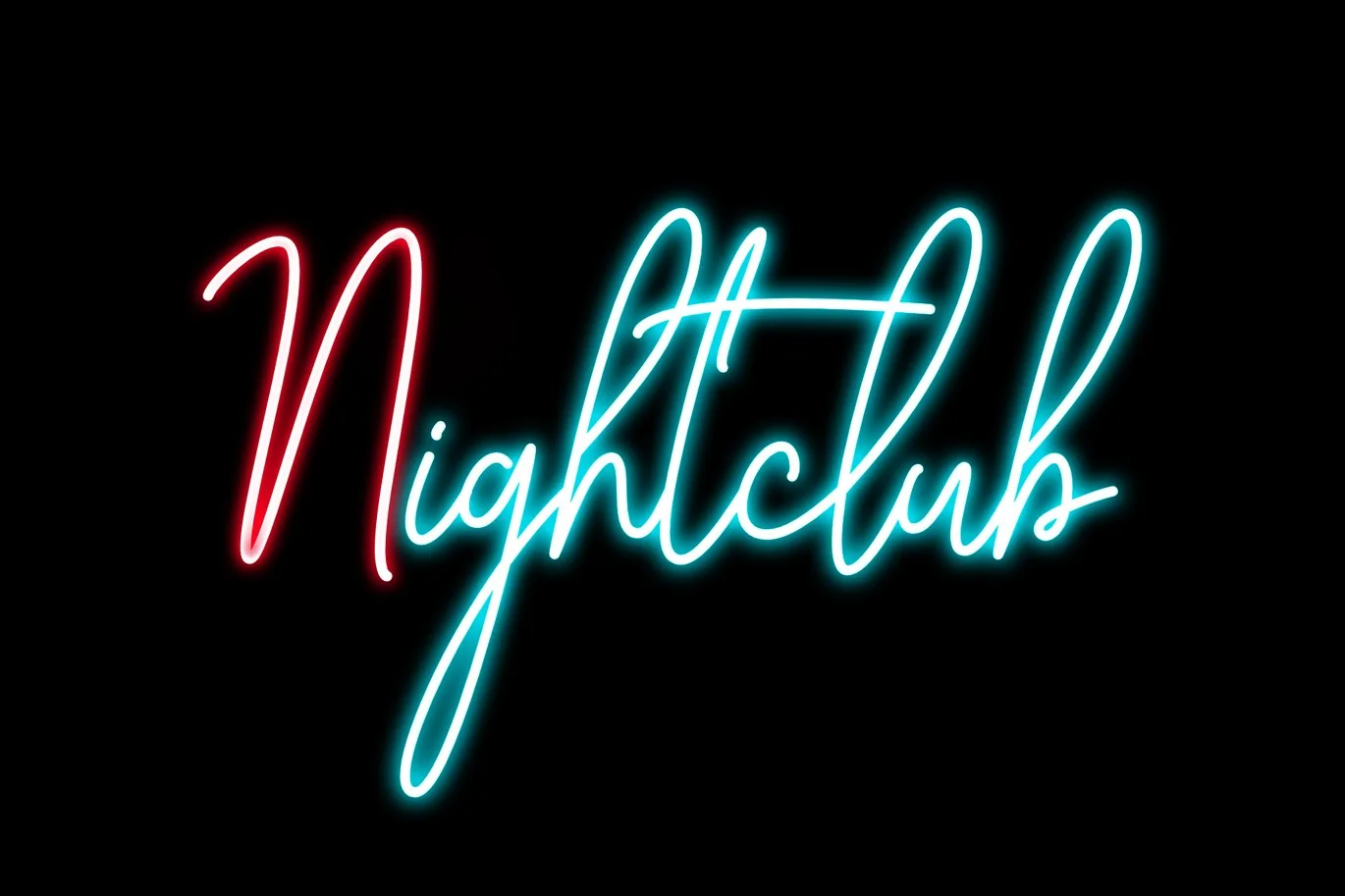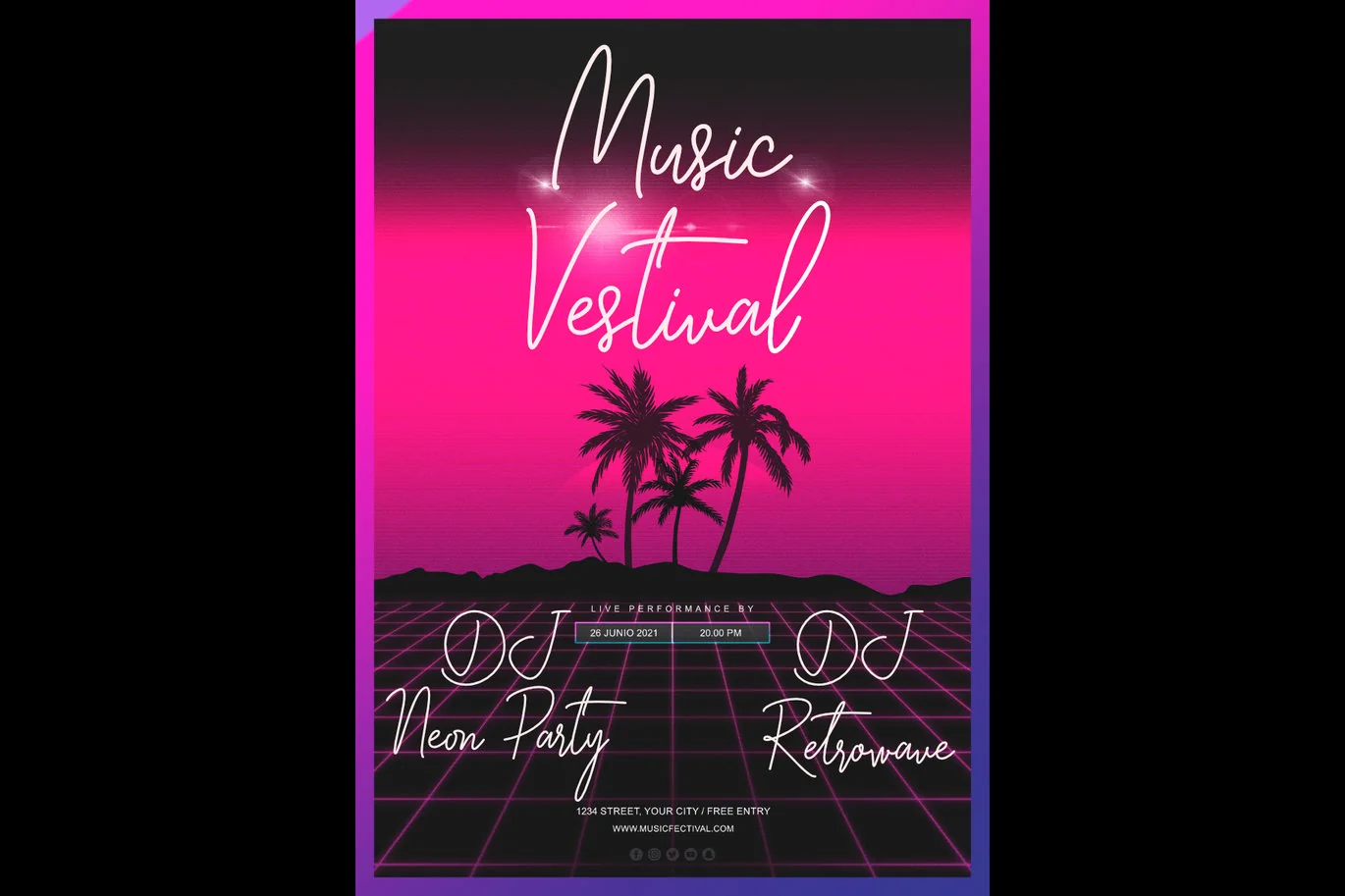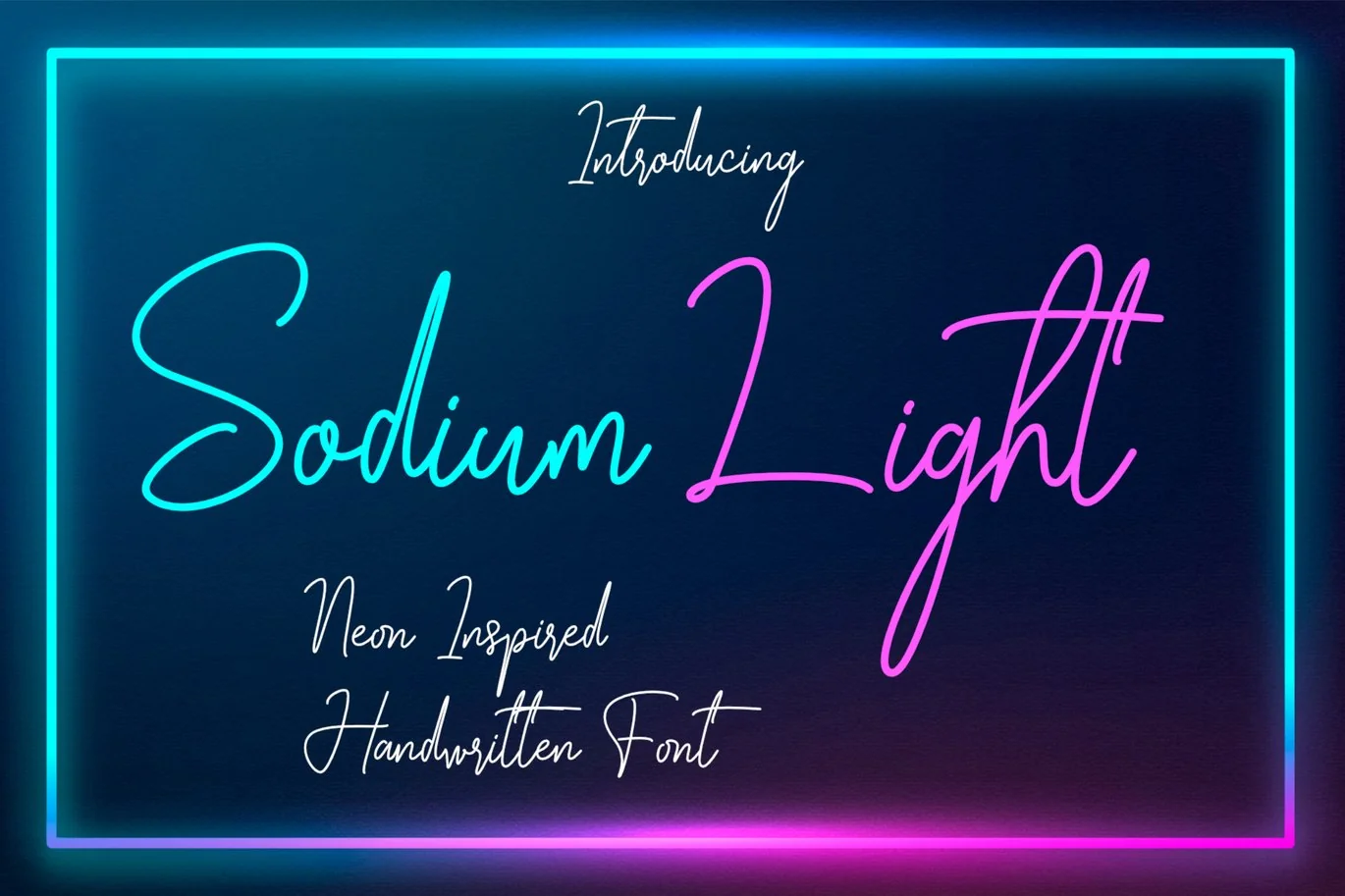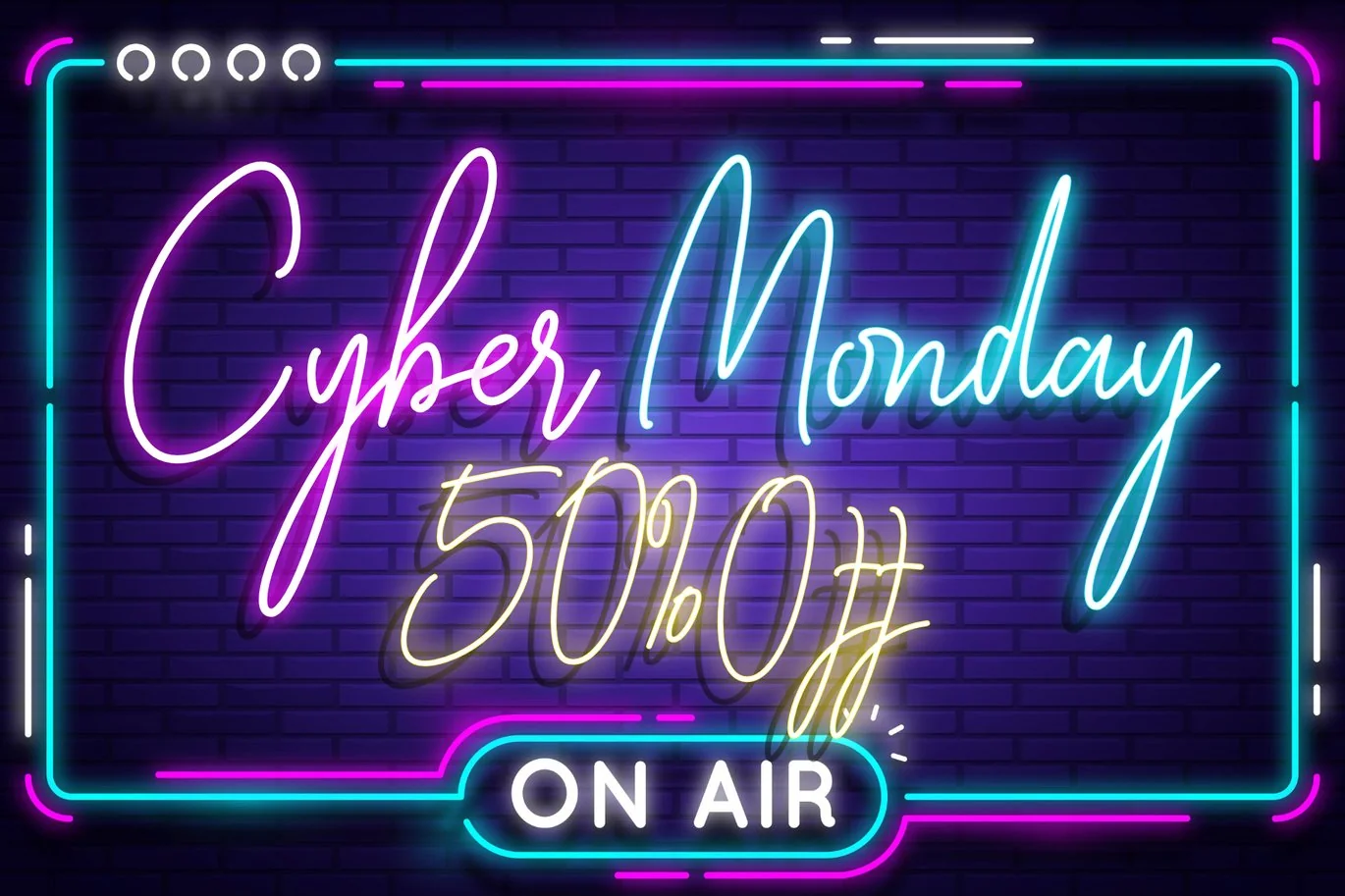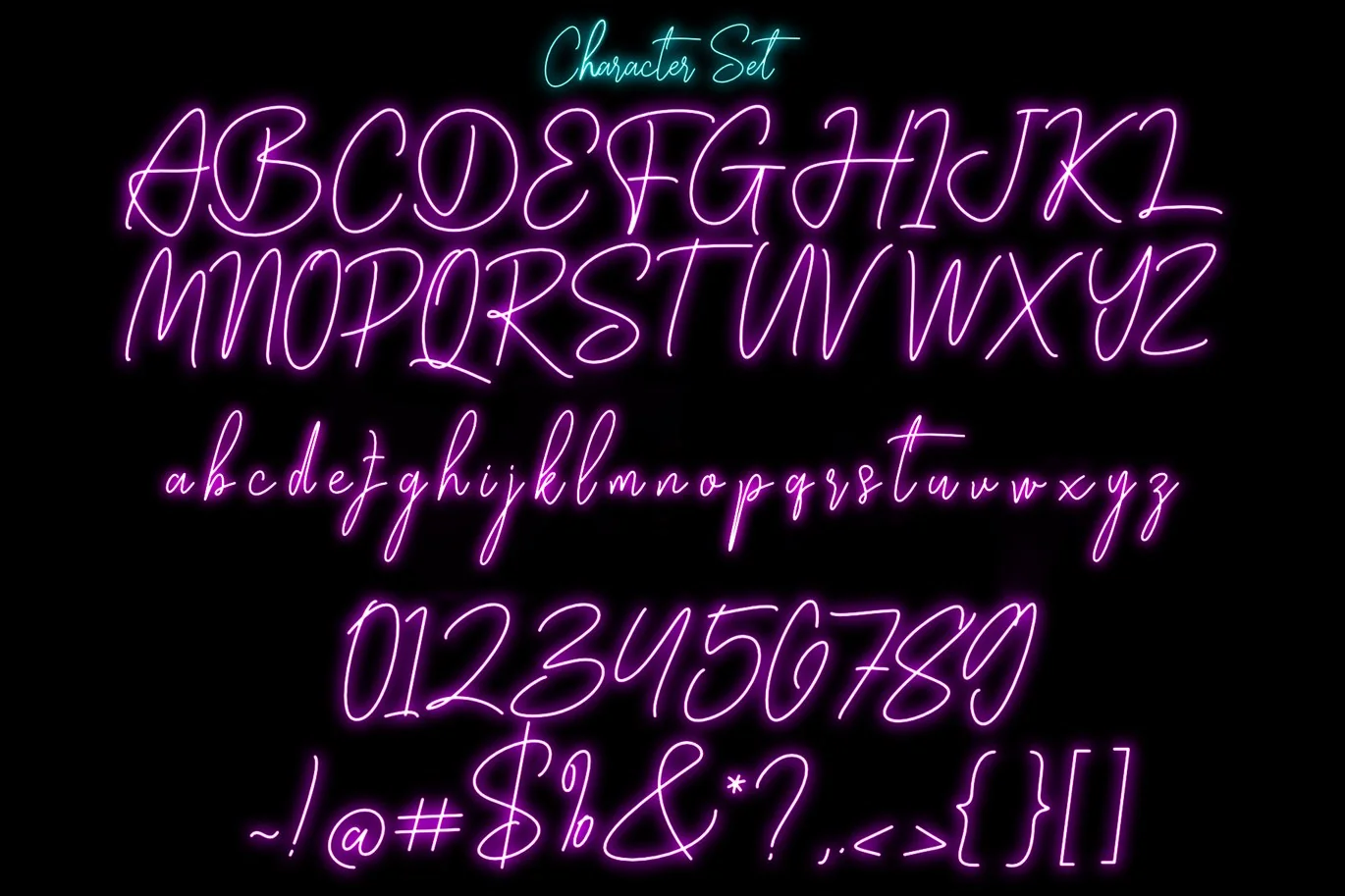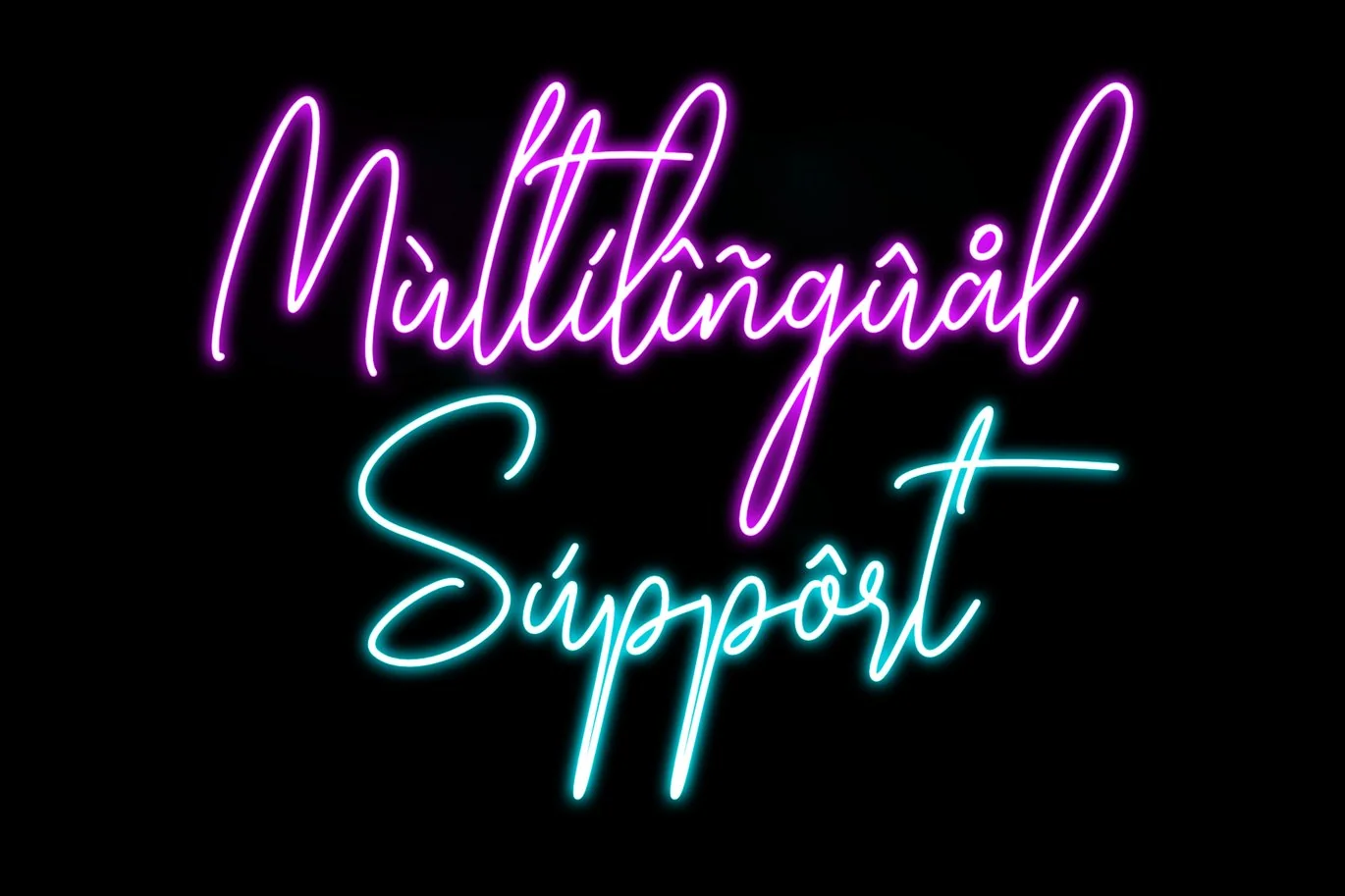
Sodium Light – Neon Handwritten Font
Sodium Light – Neon Handwritten Fonts.
These specially crafted fonts are inspired by neon, offering designers the ability to recreate handcrafted lettering with ease on their computers.
CAPTURE THE TRUE NEON ESSENCE
Ideal for music promotions, film titles, YouTube tutorials, and gig posters, these script fonts can achieve an authentic neon aesthetic.